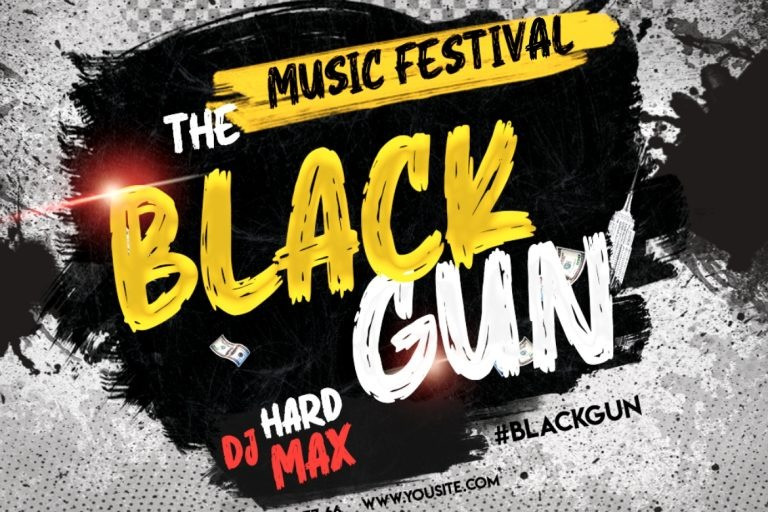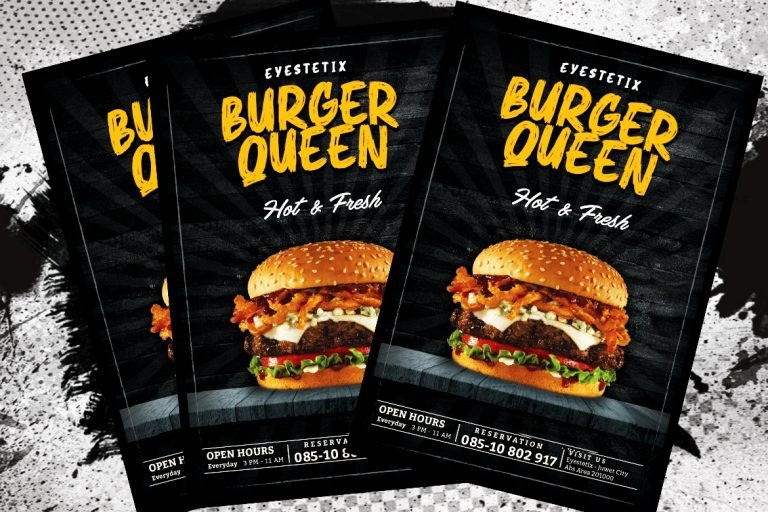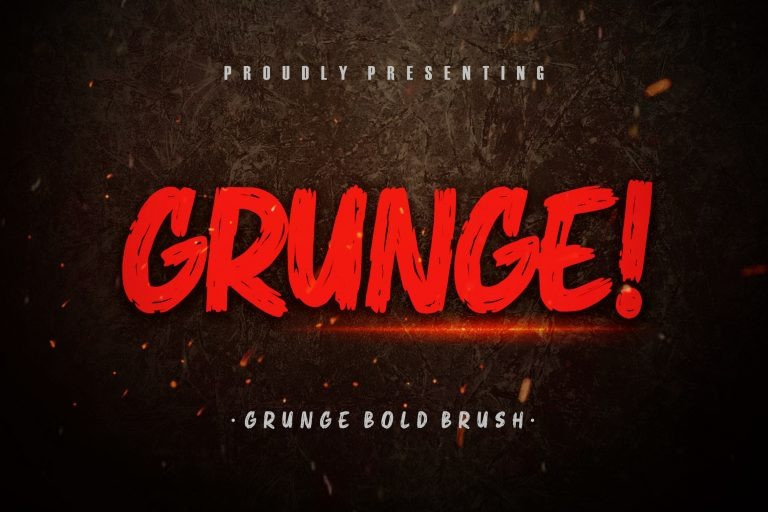
Rotisserie Handcrafted Font
Rotisseria is a natural dry brushed script font. It can be used for posters, graphic designs, quotes, greeting cards, logos, and every other design which needs a rough look.